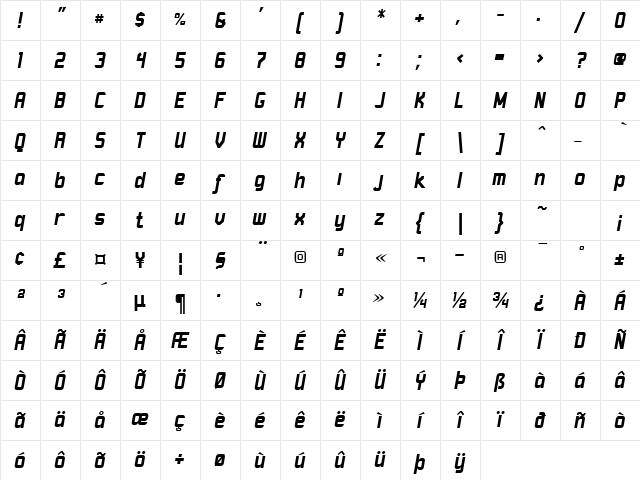
Robust ICG BoldItalic
Complete Robust ICG BoldItalic glyph index. Displaying only characters natively supported by Robust ICG BoldItalic font.
Design Context for Robust ICG
Robust ICG is a composed and adaptable typeface that performs quietly and consistently across a wide range of design contexts. The slanted form adds forward momentum and visual energy. Its bold stroke weight gives it real presence on the page.
Pro Tip: Use Robust ICG for emphasis, pull quotes, and subheadings where its slanted energy can add rhythm to the layout.